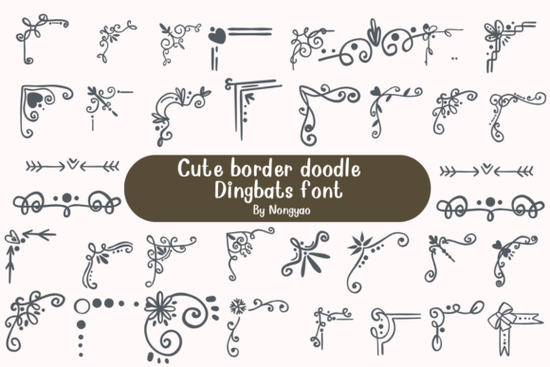
If you’ve ever needed a playful yet practical font to frame your designs, the Cute Border Doodle Font might be exactly what you’re looking for. It’s not your typical letterform it blends hand-drawn charm with functional outlines that double as decorative borders. Whether you’re designing greeting cards, printable planners, or merch for your small shop, this font adds personality without overwhelming your layout.
Who actually uses border-style doodle fonts?
These kinds of fonts aren’t just for whimsical scrapbooking they serve real purposes across several creative fields:
- Print-on-demand sellers use them to create unique notebook covers, wall art, or sticker sheets that feel handmade but scale digitally.
- Teachers and homeschoolers love the outlined characters for worksheets, flashcards, or classroom decor that invites coloring and interaction.
- Small business owners add subtle borders around logos, social media quotes, or packaging labels to give their brand a friendly, approachable vibe.
- Digital planners and journal creators incorporate these fonts as section dividers or decorative accents that don’t interfere with readability.
One tip: because this font includes both letters and border-like glyphs, check the character map (available in most design programs) to see all available symbols. Sometimes the “A” key might produce a cloud border, while “B” gives you a scalloped edge so explore before assuming it types standard text.
When not to use this font
While charming, this style isn’t suited for every project. Avoid using it for:
- Body text or long paragraphs (it’s decorative, not readable at small sizes)
- Corporate or formal branding (unless you’re intentionally going for a quirky contrast)
- Projects requiring strict accessibility standards (decorative fonts can hinder screen reader compatibility)
Instead, pair it with a clean sans-serif for headlines and let the doodle font shine as an accent like framing a quote or wrapping around a logo badge.